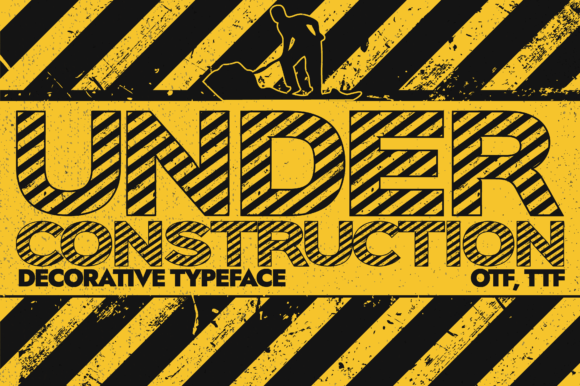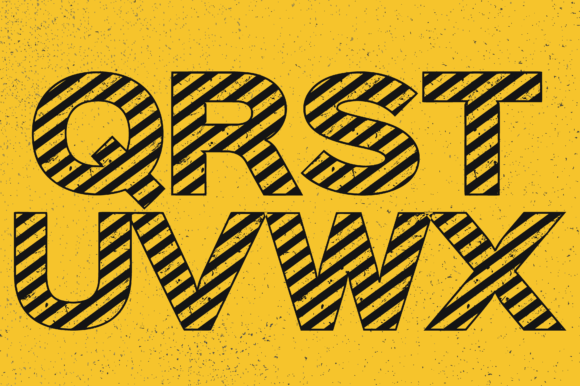
Under Construction Font
Under Construction is a superb display font that has the power to enhance your product with its playful and shredded characters.